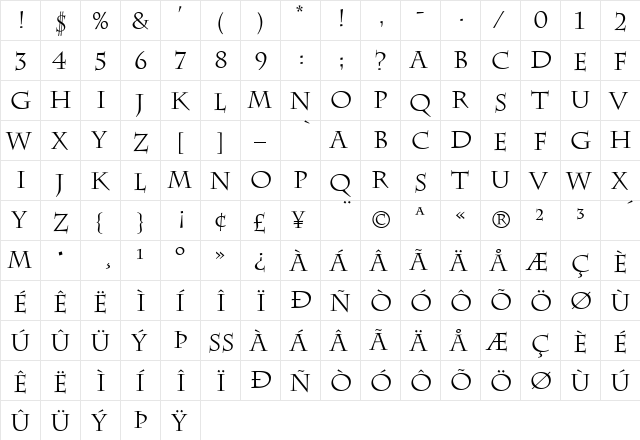
Charlesworth Regular
Design Context for Charlesworth Typeface
Charlesworth offers clean, dependable letterforms without strong stylistic allegiance, making it a practical choice for designers who need flexibility.
Pro Tip: Use Charlesworth in both headline and body roles to test its range before committing to a single application.